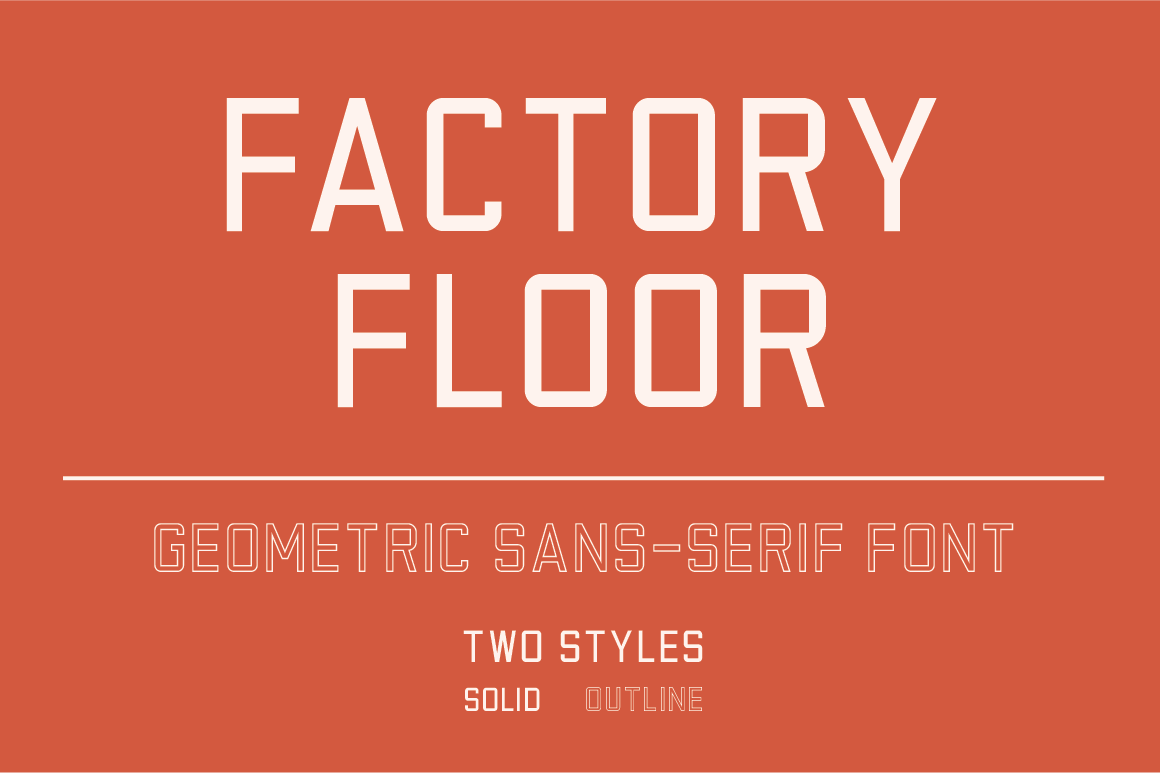
Factory Floor Font - Two Styles
Factory Floor is a geometric sans-serif typeface designed by Seth McWhorter, a graphic designer based in Atlanta, GA.
Inspired by safety signage, Factory Floor is a clean, simple, useful font.
Two styles included - Solid and Outline.
Current version only includes the basic character set.